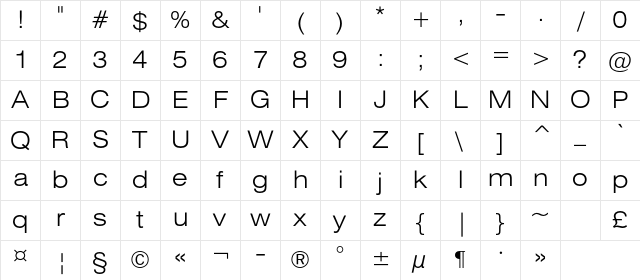
Complete HeliosExtLightC Regular glyph index. Displaying only characters natively supported by HeliosExtLightC Regular font.
HeliosExtLightC is a composed and adaptable typeface that performs quietly and consistently across a wide range of design contexts. Its slender proportions lend an understated elegance to any composition.